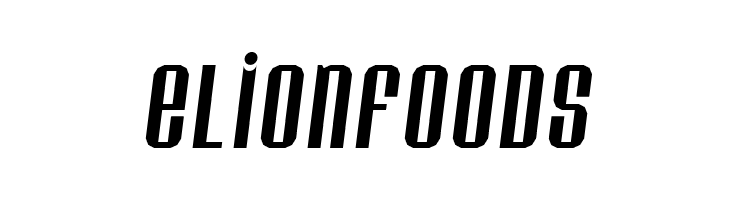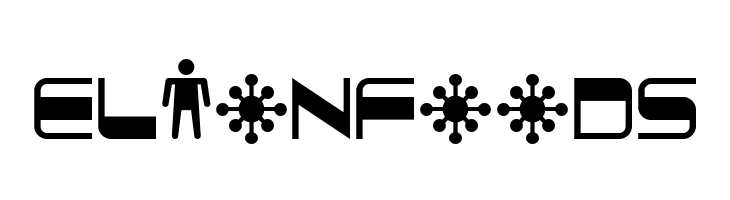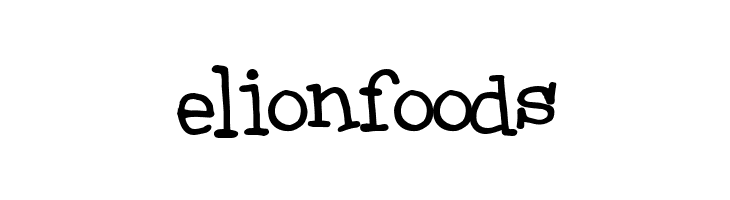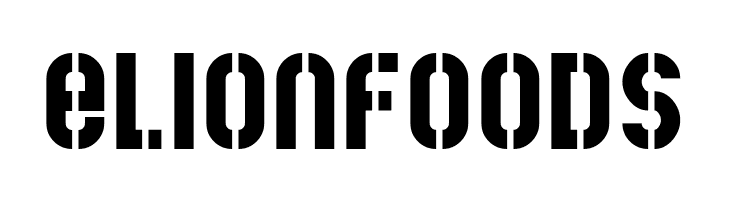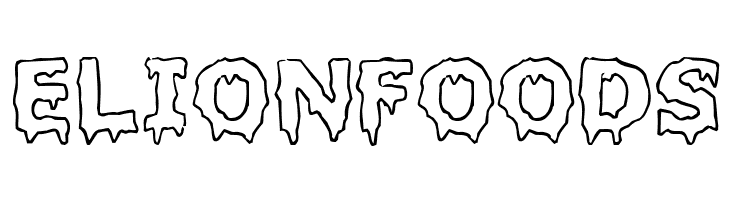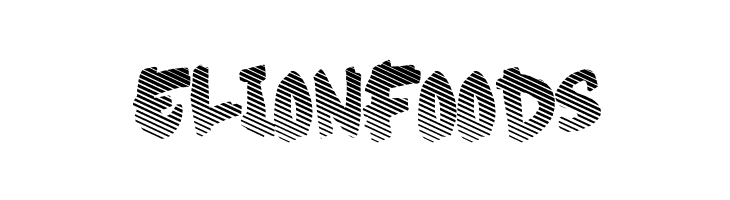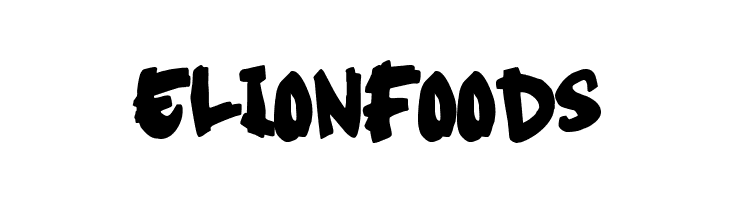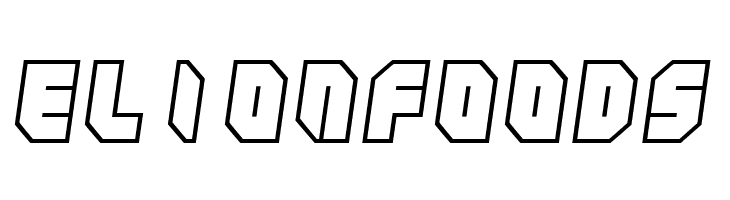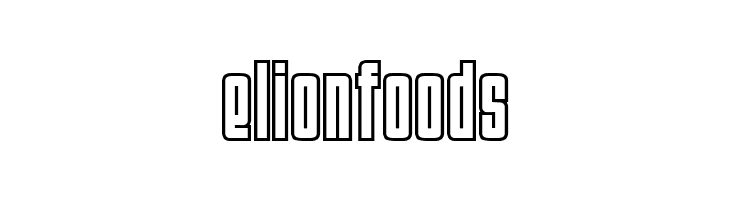
A bold, slanted font with a modern and dynamic style.
A bold, futuristic font with geometric shapes and unique character elements.
A playful, hand-drawn font with a cartoonish and whimsical style.
A bold, geometric stencil font with a modern industrial aesthetic.
A bold, dripping liquid effect font ideal for playful or eerie designs.
A bold, playful font with a unique diagonal striped pattern.
A bold, playful font with a hand-drawn, energetic style.
A bold, geometric outline font with sharp angles and a modern look.
Bold, geometric font with a futuristic and angular design.
A bold, geometric outline font with a modern, condensed style.